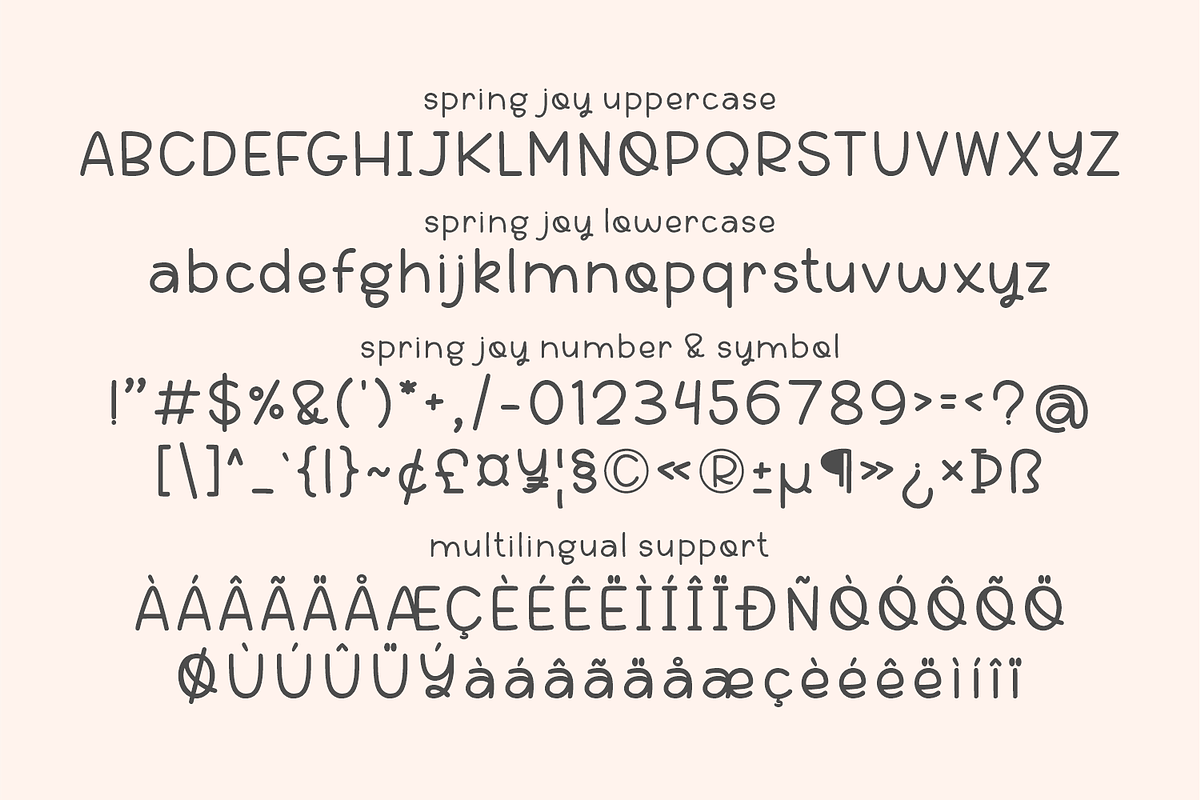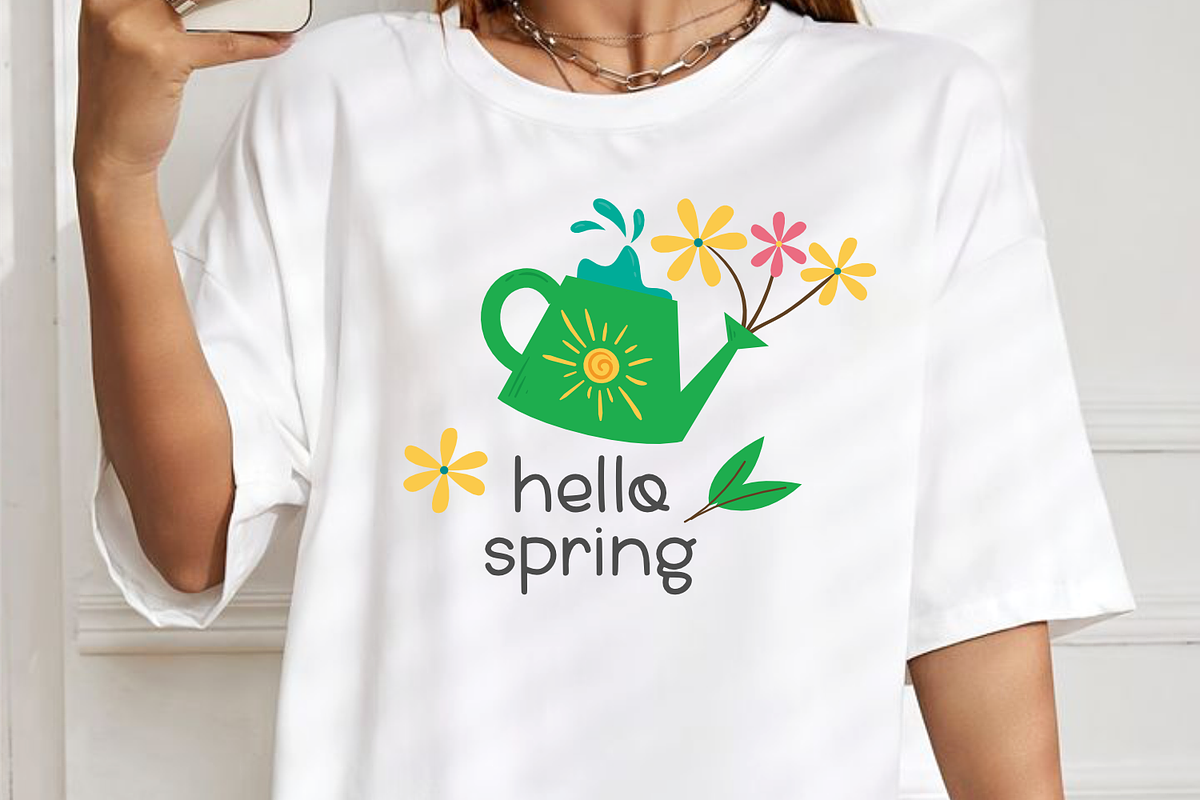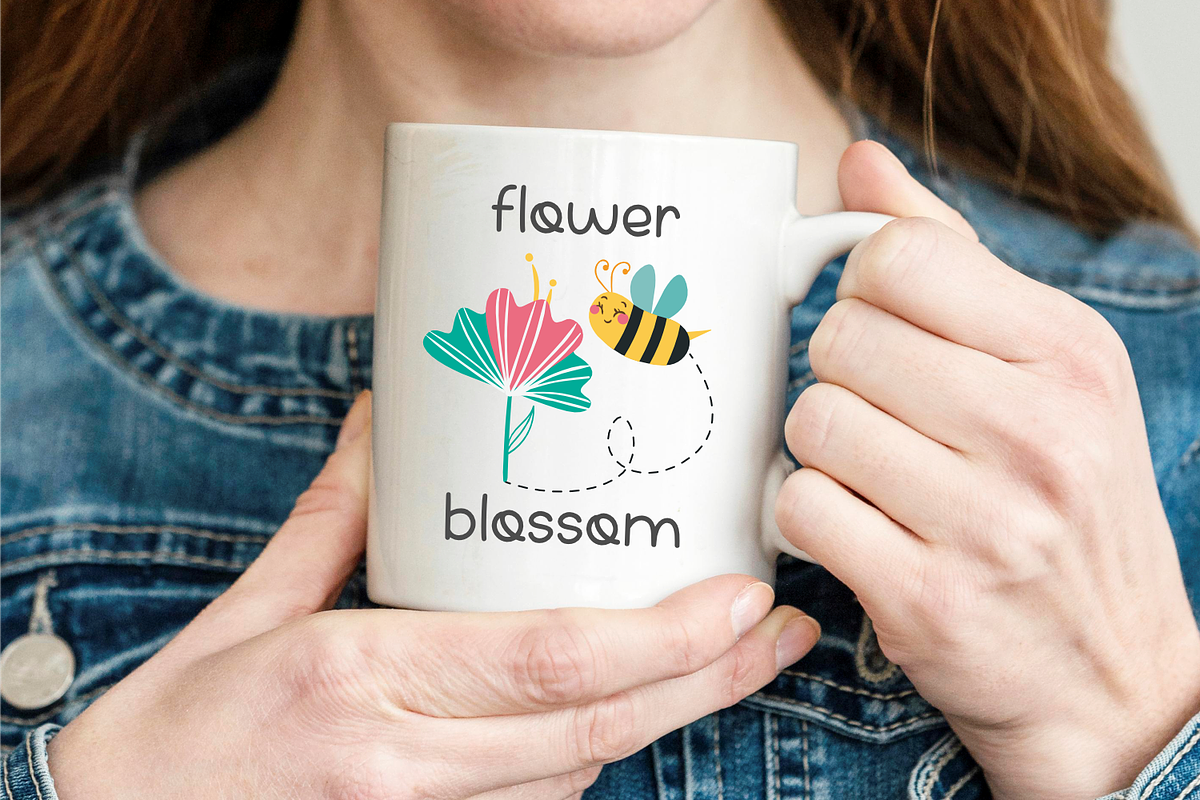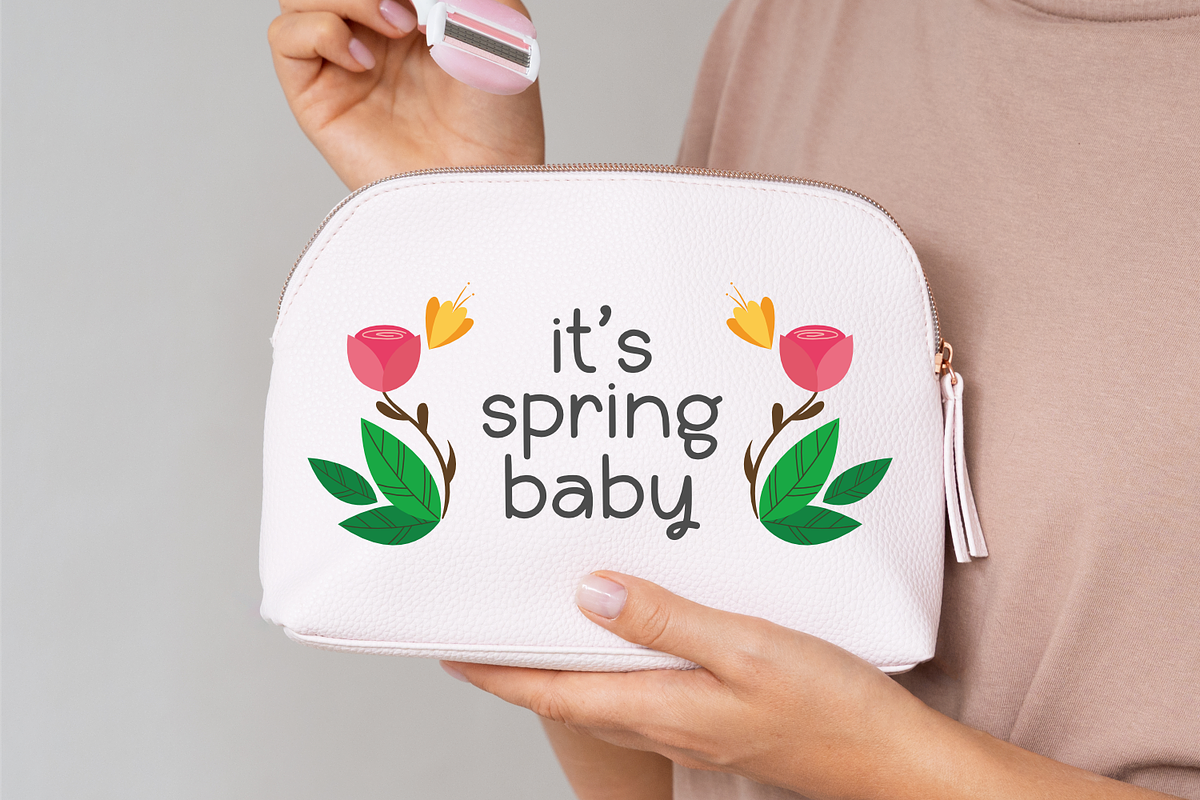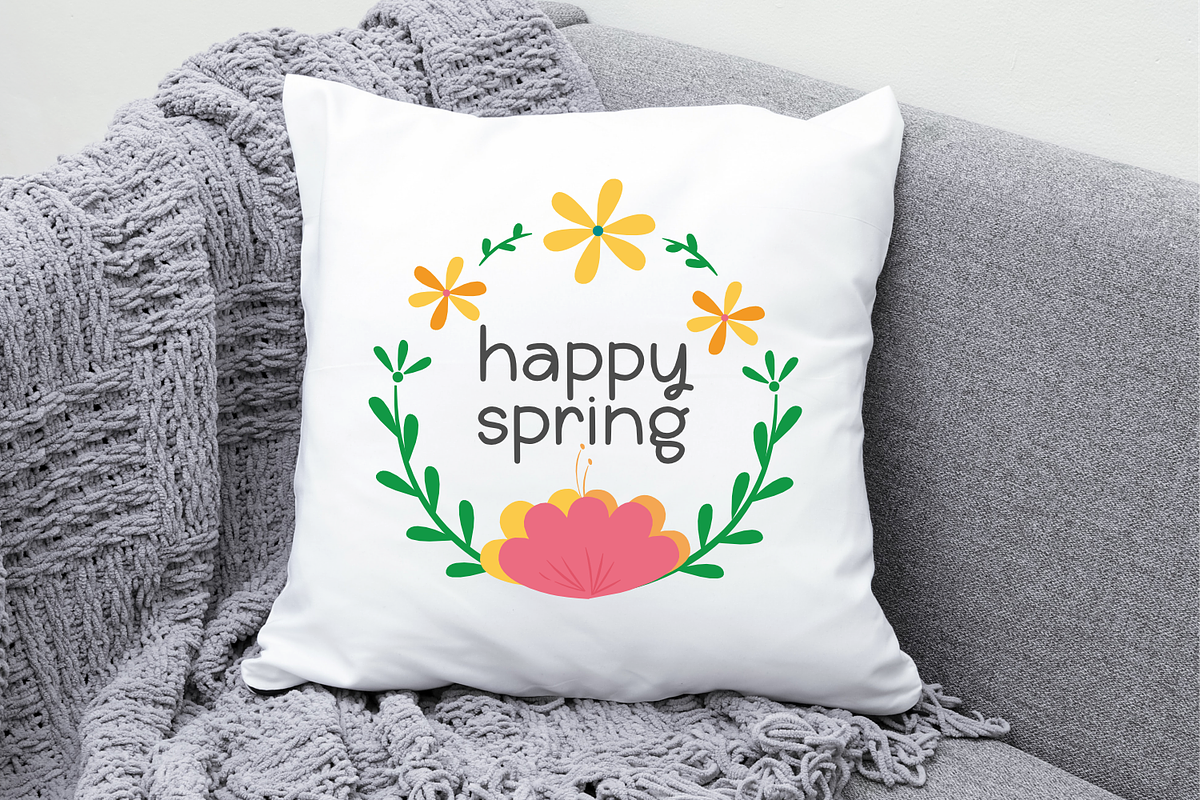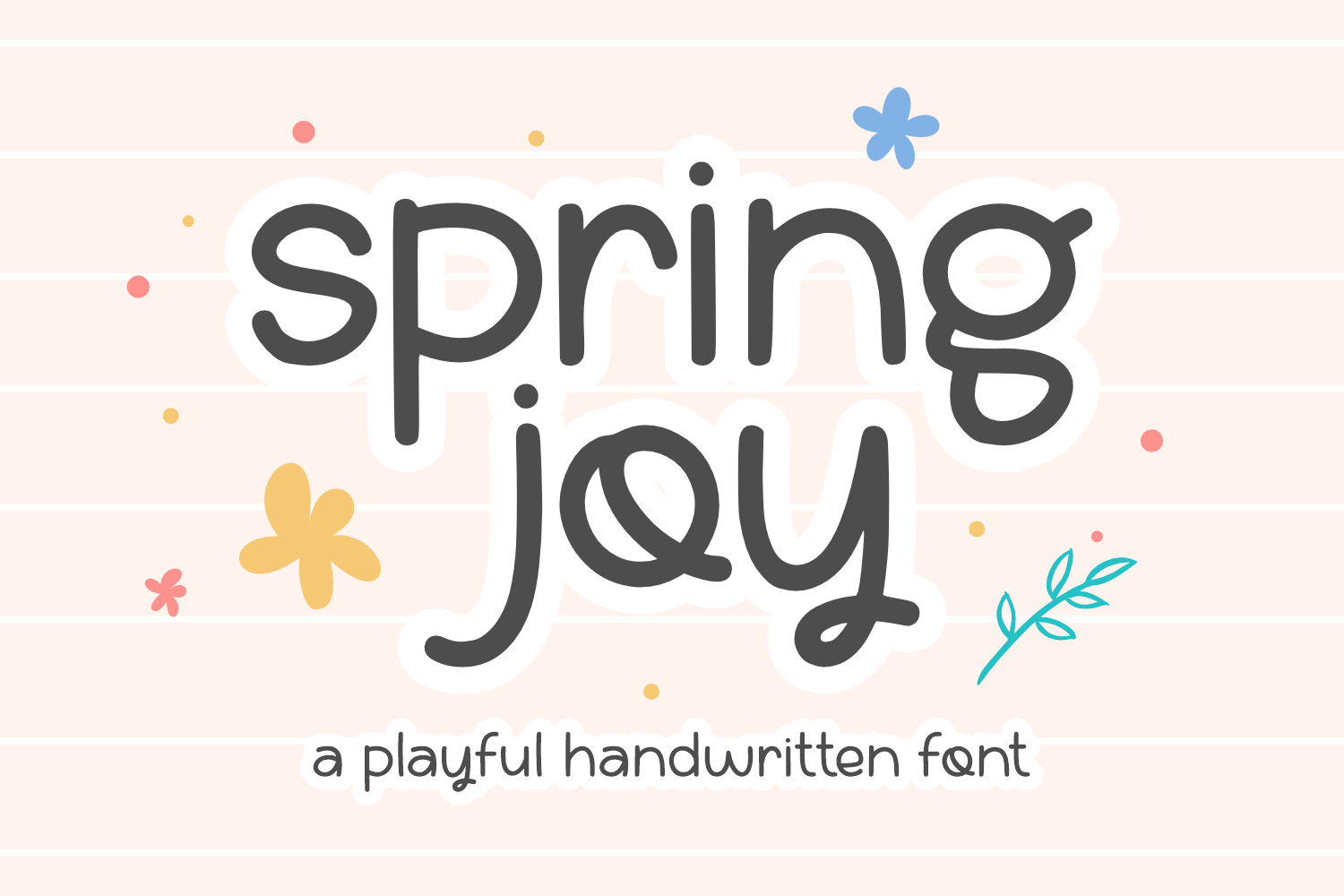
Spring Joy - Playful Kids Font
Spring Joy is a playful handwritten font, this font exudes warmth and softness, perfect for designs that want to convey a friendly and fun message. Its loose lines give a relaxed and familiar impression, like a close friend’s handwriting This font has a strong character but remains friendly. The design of the letters is thick with rounded ends. Gives a solid impression but remains friendly and accessible
Spring Joy font exudes the cheerfulness and refreshing spirit of spring. Each stroke of the letter feels light and flowing, as if dancing with the spring breeze, its soft, curved lines reflect the gentleness and warmth of the spring sunshine.